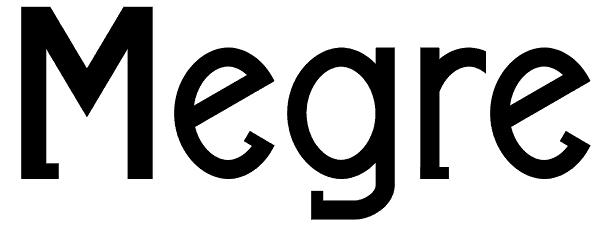
Megre
The courageous Russian author of the best seller Anastasia, Vladimir Megre, once said that this remarkable woman would inspire creative people around the world to produce their best work. Since I consider myself a creative person who has been deeply...